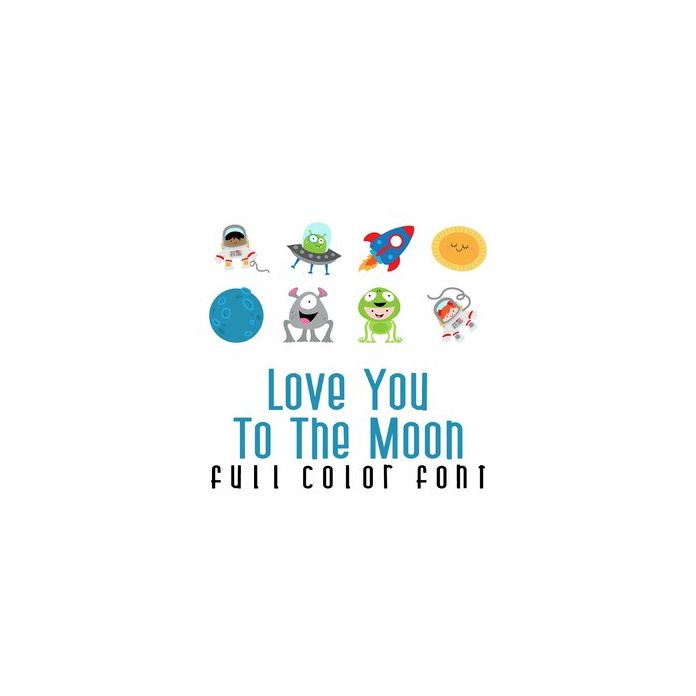
This adorable full color doodlebat font features adorable space imagery with Valentine puns. Perfect for cards, crafts, gifts, decor, scrapbook pages, planner stickers and more!